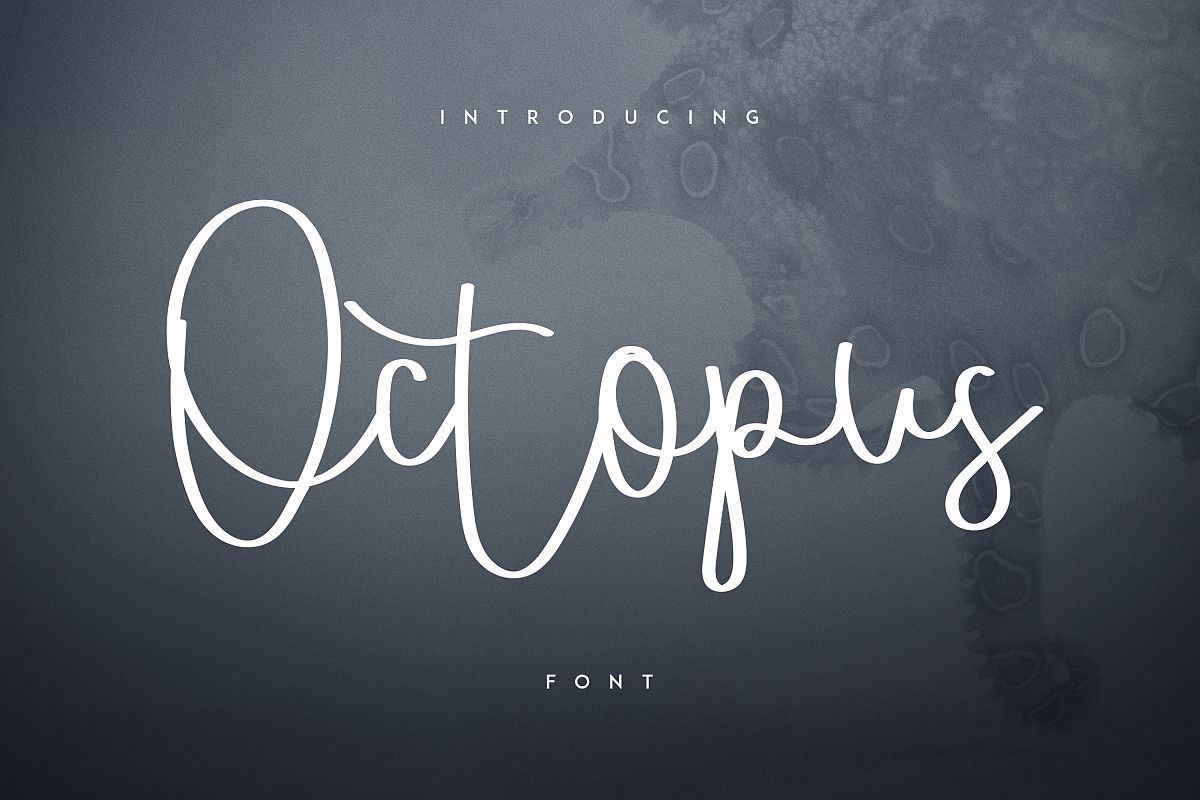
Octopus font
Introducing: Octopus font ! A handwritten font with a personal charm. With dry clean lines, Octopus is perfect for branding projects, home-ware designs, product packaging - or simply as a stylish text overlay to any background image.